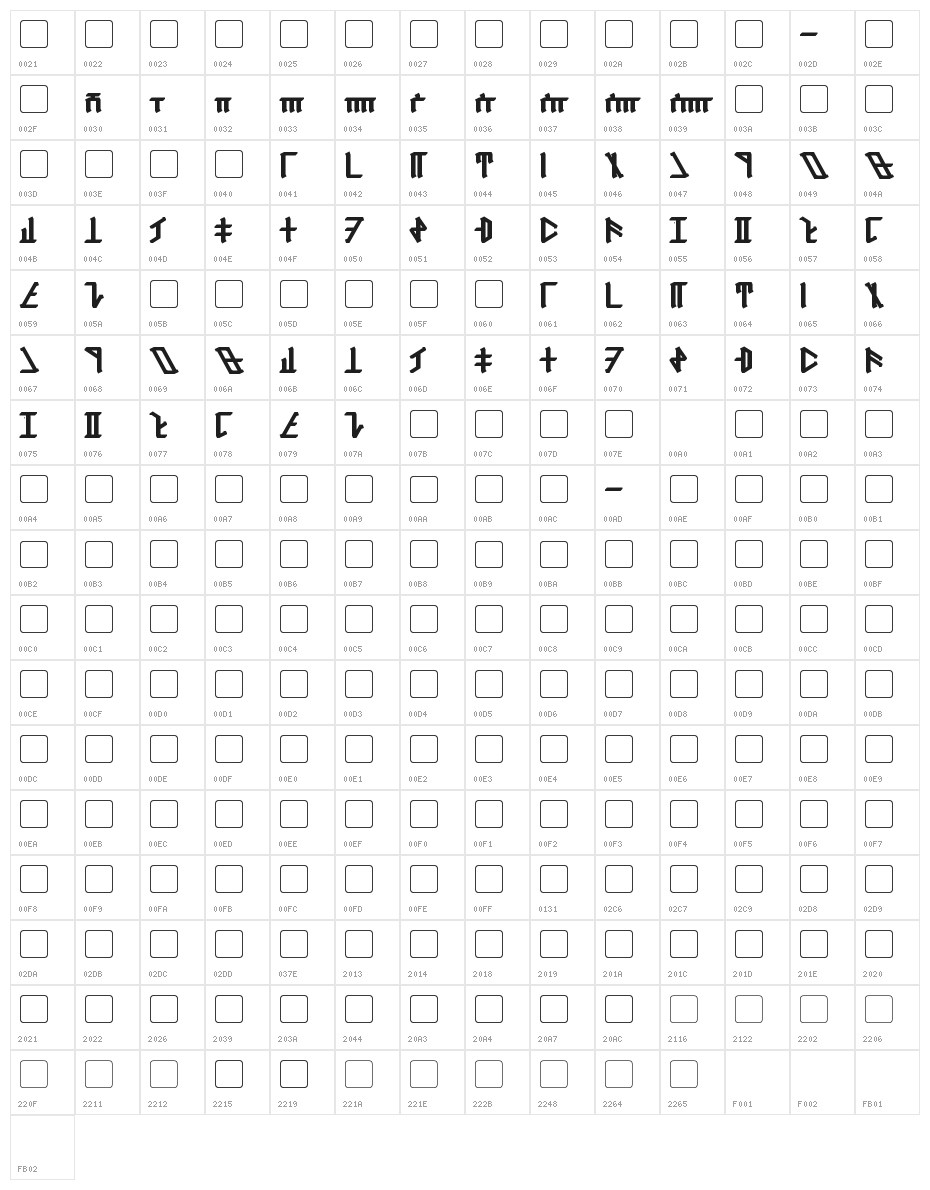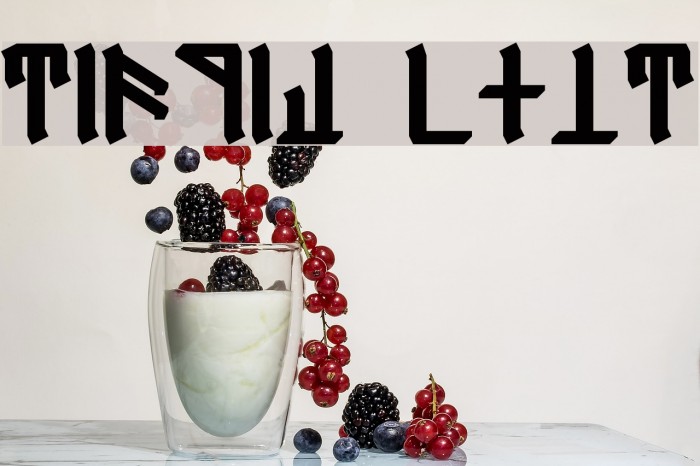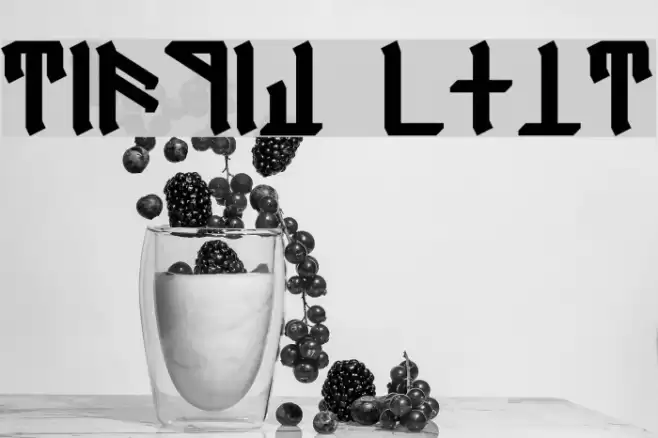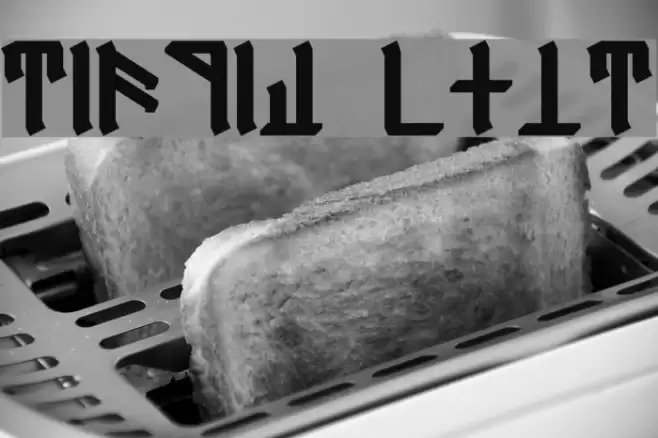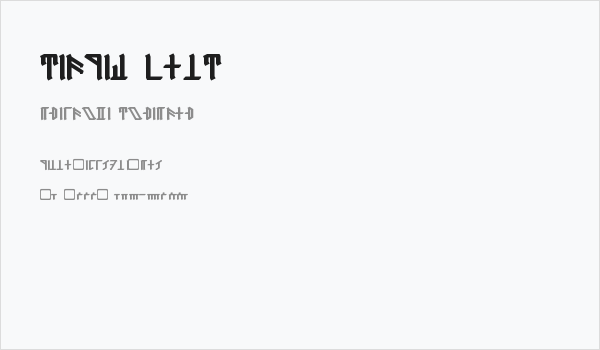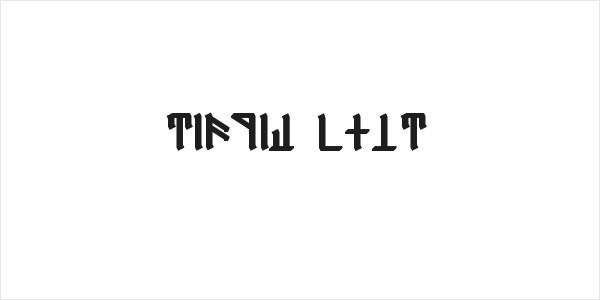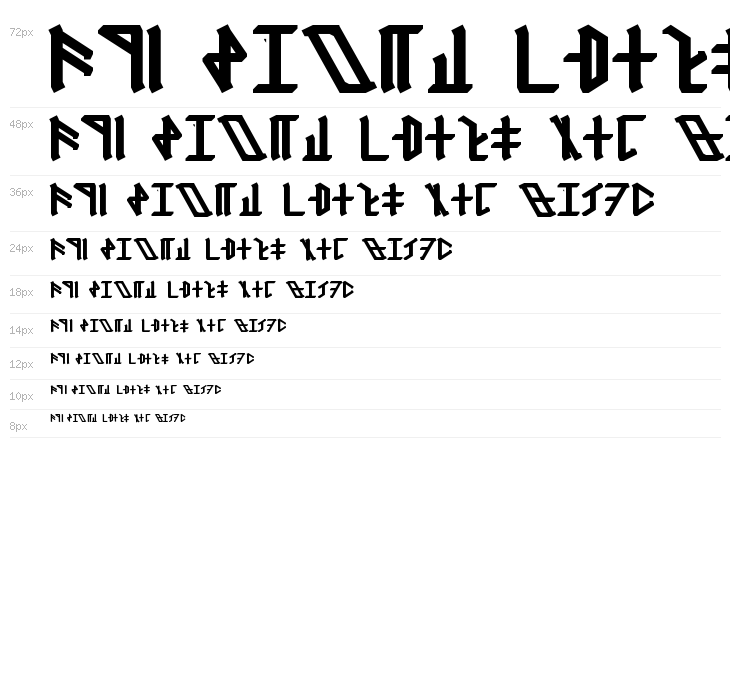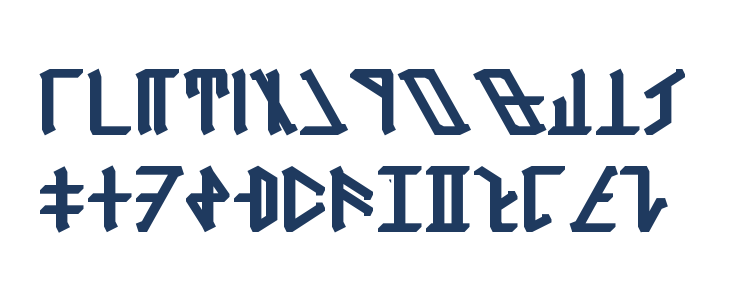
Dethek Bold Font
Dethek Bold Description
This font features a bold, angular design reminiscent of ancient runic alphabets. The characters are constructed with sharp, geometric lines and a consistent thickness, giving it a strong and commanding presence. The style is highly decorative, with each letter exhibiting a unique, almost mystical quality. The uppercase and lowercase letters maintain a uniform height, while the numerals and special characters integrate seamlessly into the overall design. This font's distinct appearance makes it ideal for projects that require a touch of fantasy or historical flair.
| Proposed Projects | Ideal for fantasy-themed projects, game design, book covers, and decorative signage. |